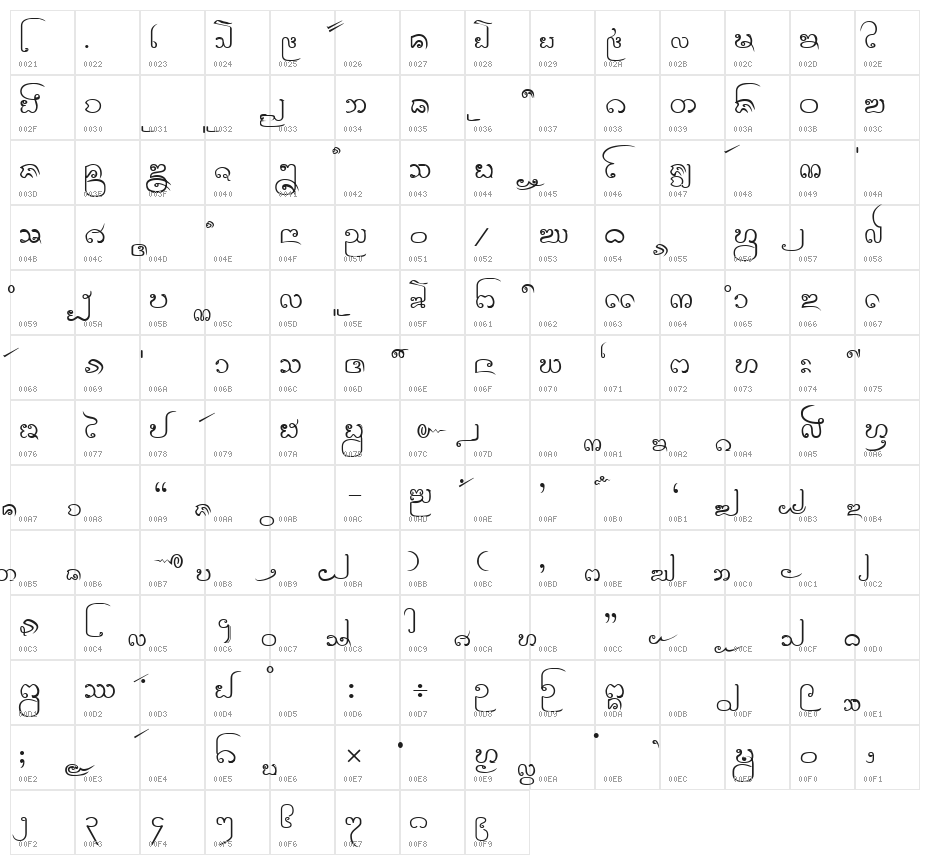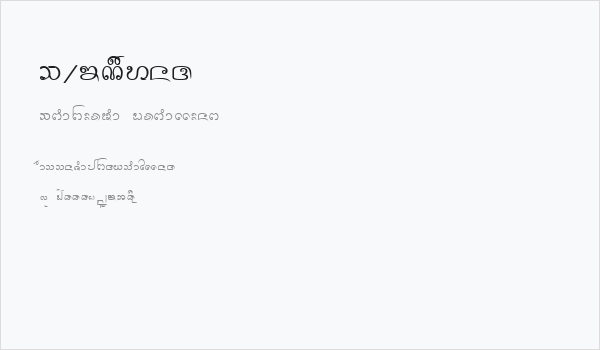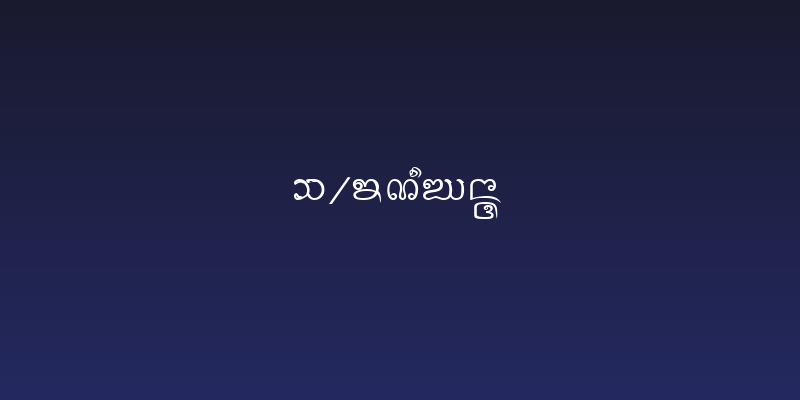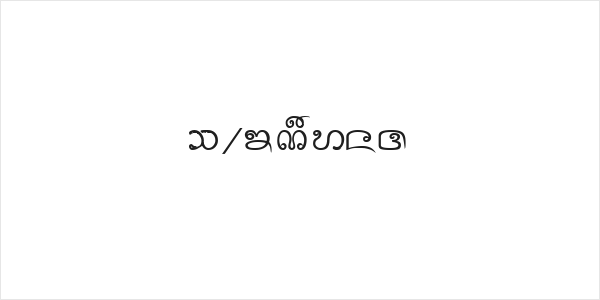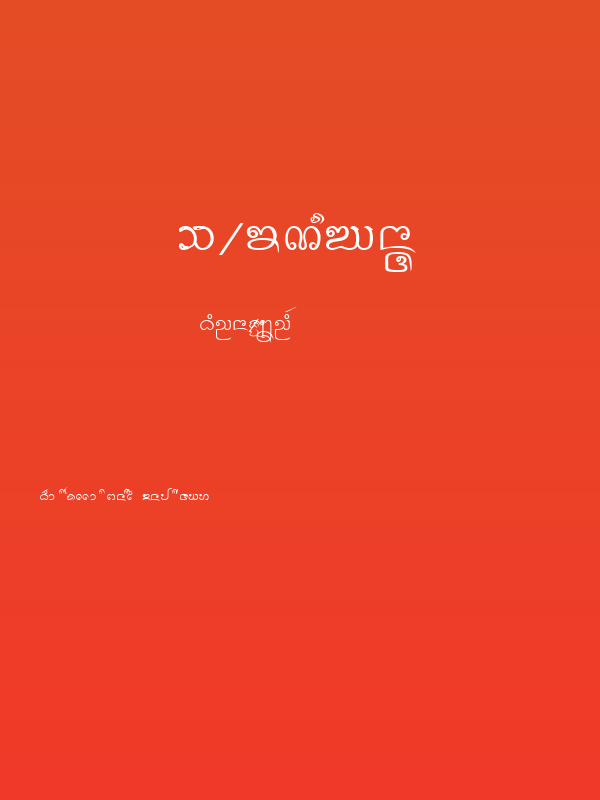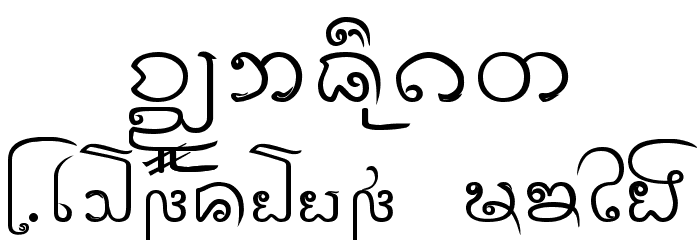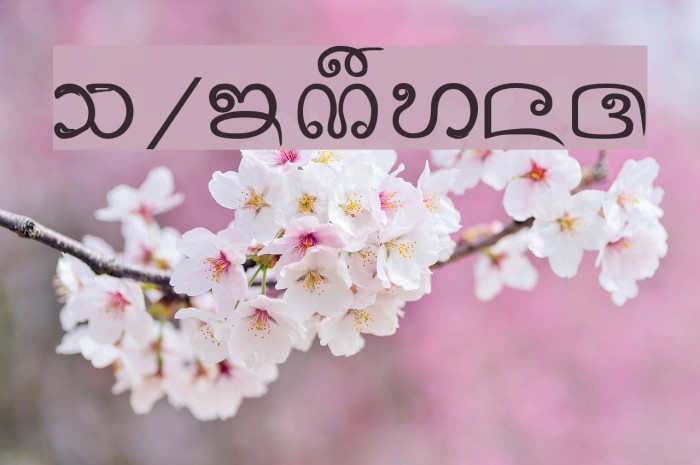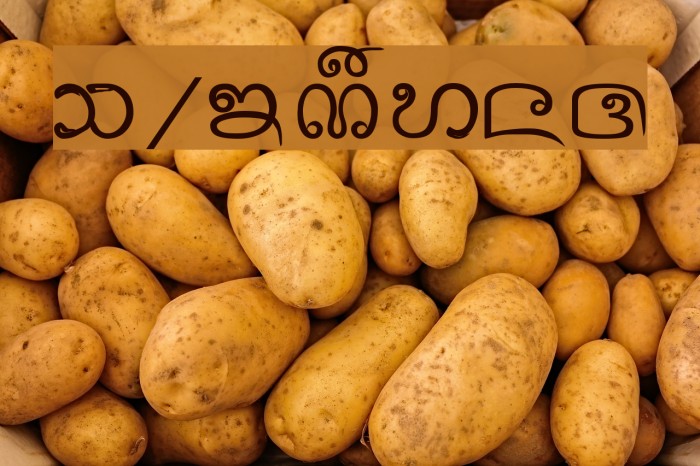
CR-Insom Font
CR-Insom Description
This font features intricate, highly decorative letterforms with elaborate swashes and flourishes, giving it an ornate and artistic appearance. The characters are rounded with pronounced curves and loops, and the overall style is visually complex and expressive.
| Overall Style | Decorative, Artistic, Ornate |
| Use Case | Headlines, Logos, Invitations, Posters |
| Proposed Projects | Event invitations, certificates, artistic posters, branding for luxury or cultural products. |